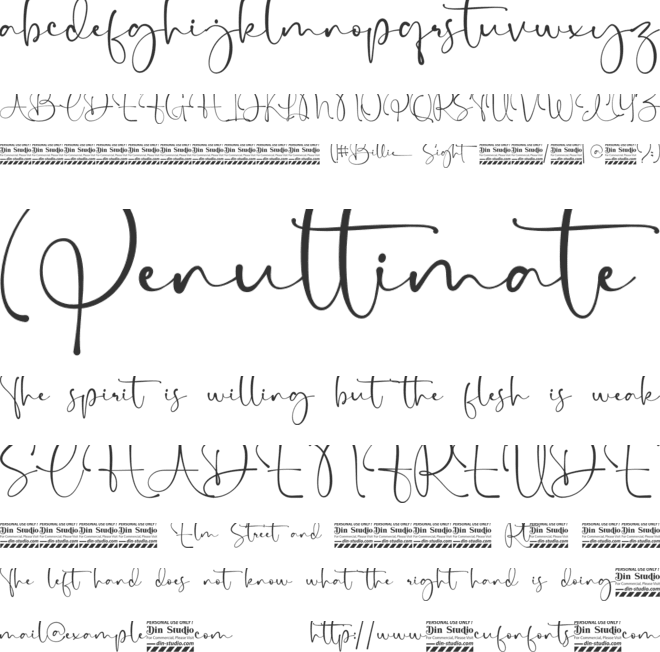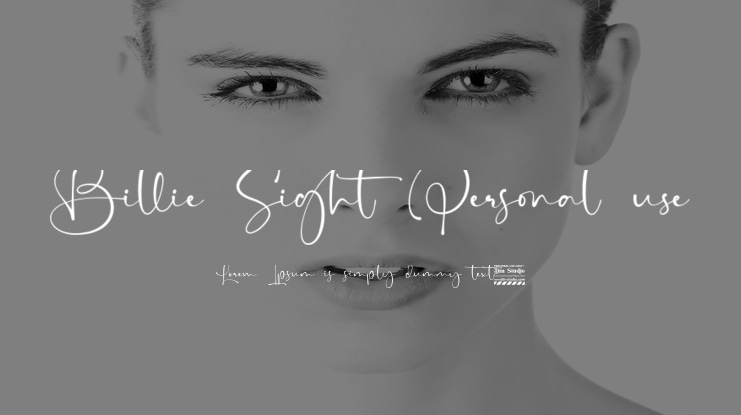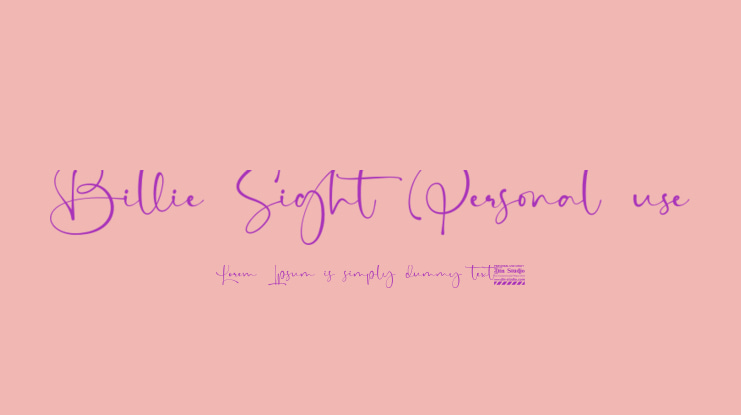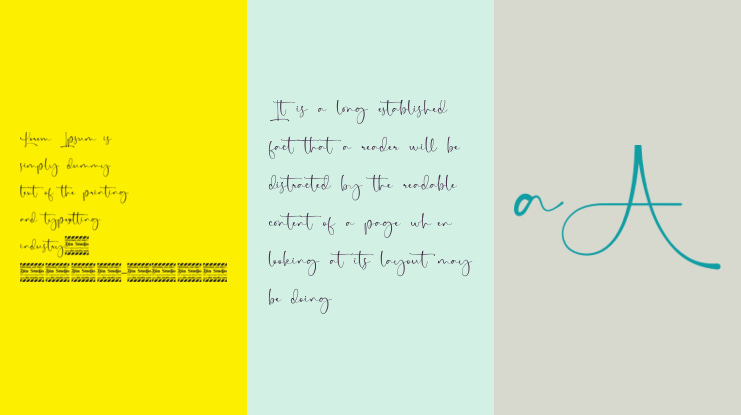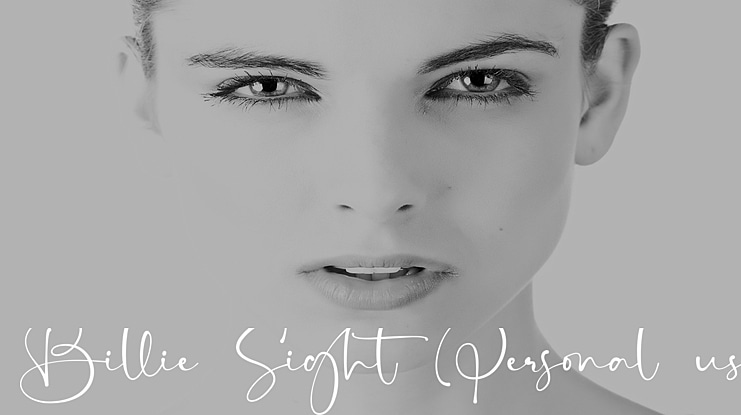
Introducing Billie Sight- A Signature Font
Billie Sight is a modern and elegant handcrafted signature font to embrace your audiences or guests.
Every stroke and curve was created to capture the essence of elegance and style. Perfect for social
media posts and ads, printed quotes, t-shirt designs, packaging, or even as a modern text overlay to any background image.